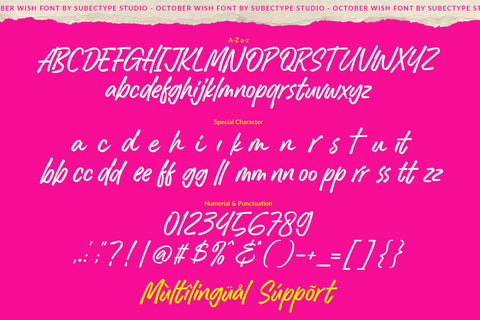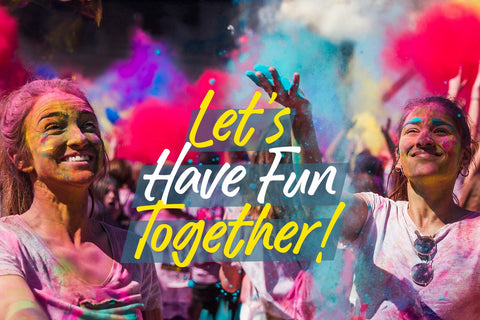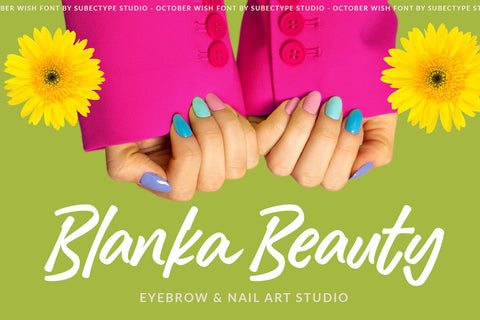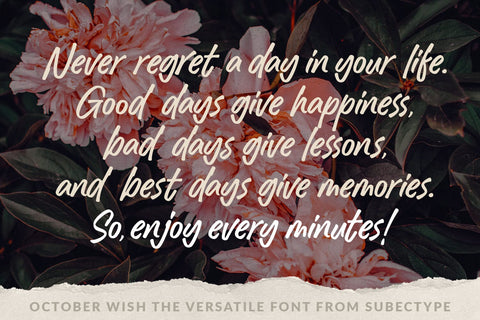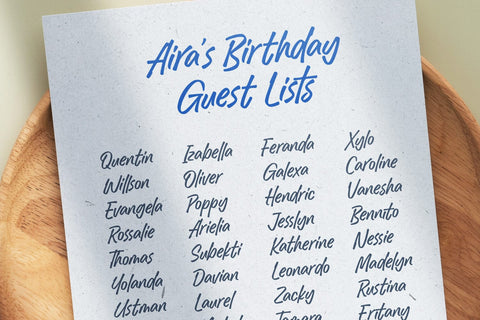
October Wish - Handwritten Font
October Wish is a casual handwritten font with bold handwriting style. Each stroke and curve of this font is unique charm that effortlessly enhances any project, from invitations to digital designs. Adding an authentic touch that resonates across diverse themes and mediums. Elevate your creations and evoke a sense of artful individuality as you harness the power of these versatile handwritten fonts.
Punctuations (OpenType Standard)
Accents (Multilingual Characters)
Ligatures